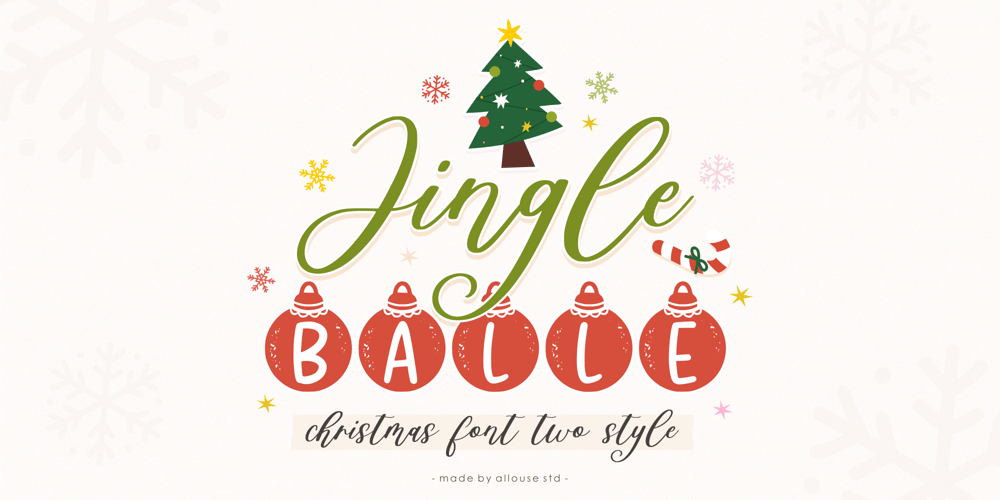
Jingle Balle Font Family was designed by Fachrizal Yusuf and published by Allouse Studio. Jingle Balle contains 2 styles and family package options. Proudly Presenting, ingle Balle A Christmas Font With Two Styles.Jingle Balle is perfect for any titles, logo, product packaging, branding project, megazine, social media, wedding, or just used to express words above the background.Jingle Balle also come with Multi-Lingual Support.Enjoy the font, feel free to comment or feedback, send me PM or email. Thank You!